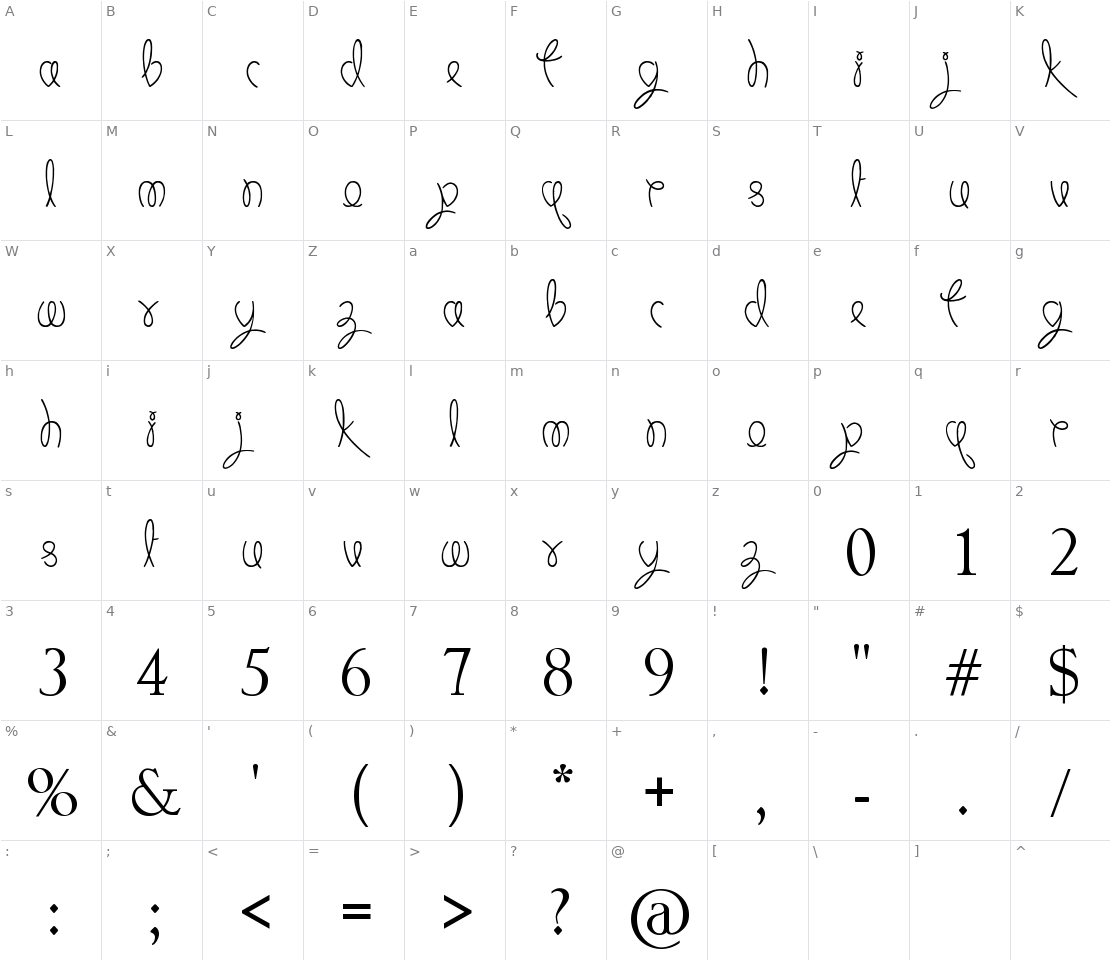
Keep It Simple
Keep It Simple is a light, looping cursive from Jonathan S. Harris with thin strokes and a whimsical rhythm that feels genuinely handwritten rather than overly polished. The letterforms have a feminine elegance to them, airy and playful, with just enough decorative flair in the connections and flourishes to keep things interesting. Works best for invitations, personal branding, packaging, and headlines where you want something delicate and warm.